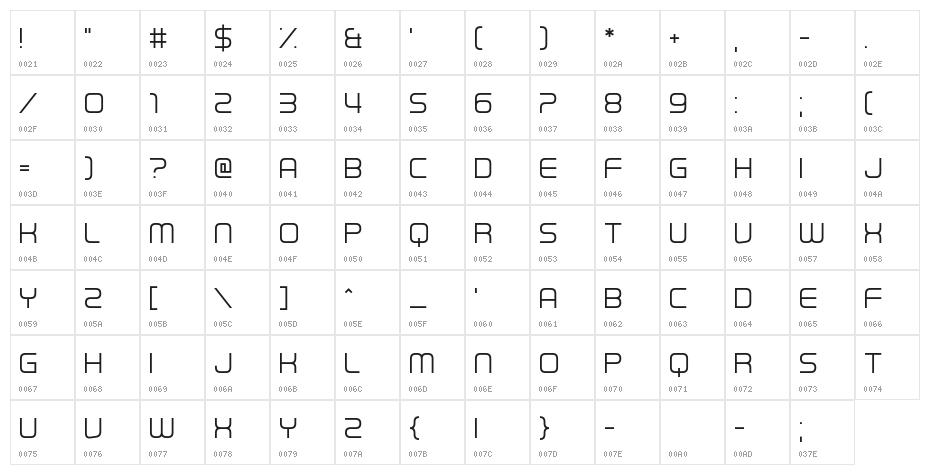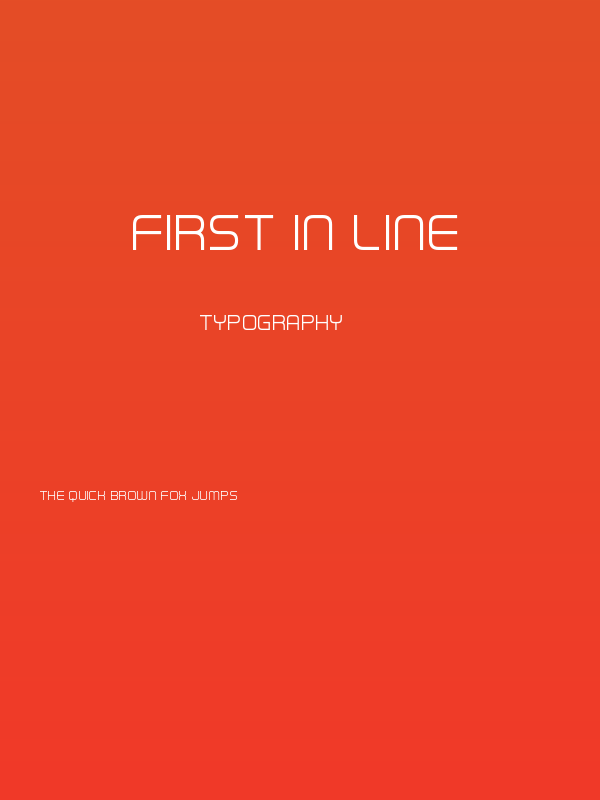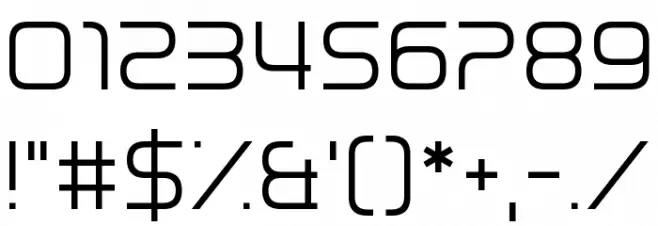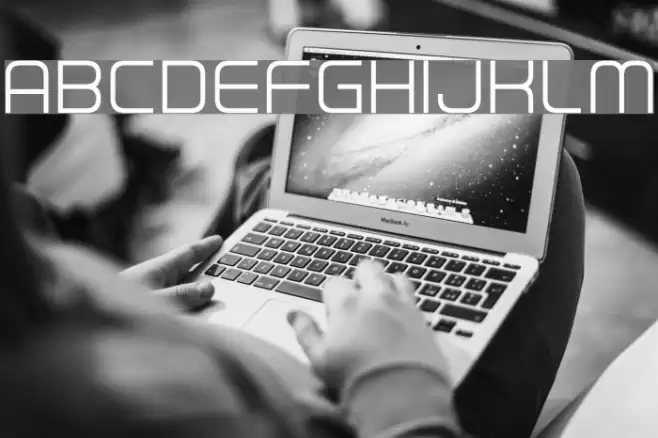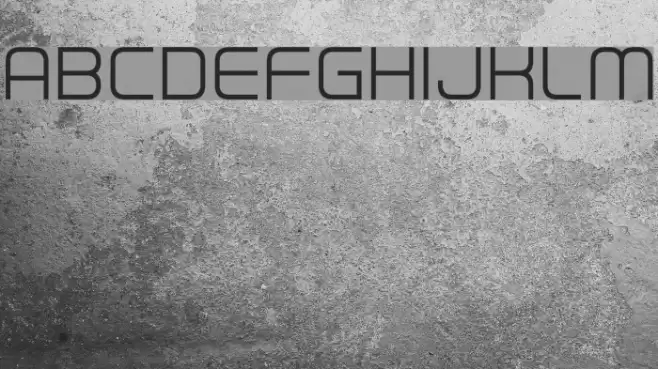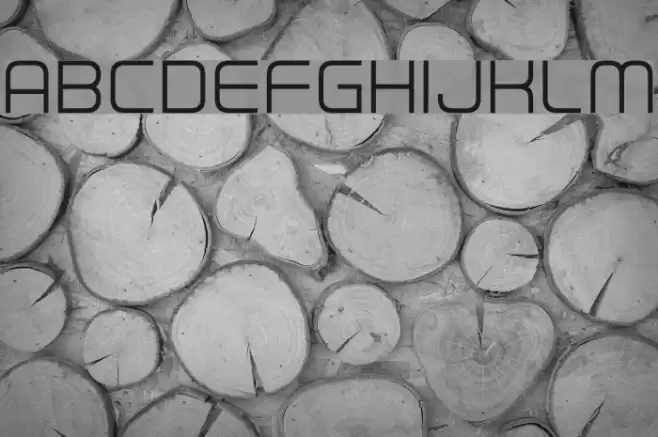
First In Line Font
First In Line Description
This font features a clean, geometric design with rounded edges and a modern aesthetic. The characters are uniform in width, giving it a monospaced appearance, although it is not strictly monospaced. The uppercase and lowercase letters maintain a consistent height, contributing to its sleek and streamlined look. The numerals and special characters are designed to match the overall style, ensuring a cohesive appearance across all text. This font is highly legible, making it suitable for various digital and print applications.
| Use Case | Headlines, Logos, Digital interfaces |
| Proposed Projects | Ideal for tech branding, digital interfaces, modern advertising, and minimalist design projects. |